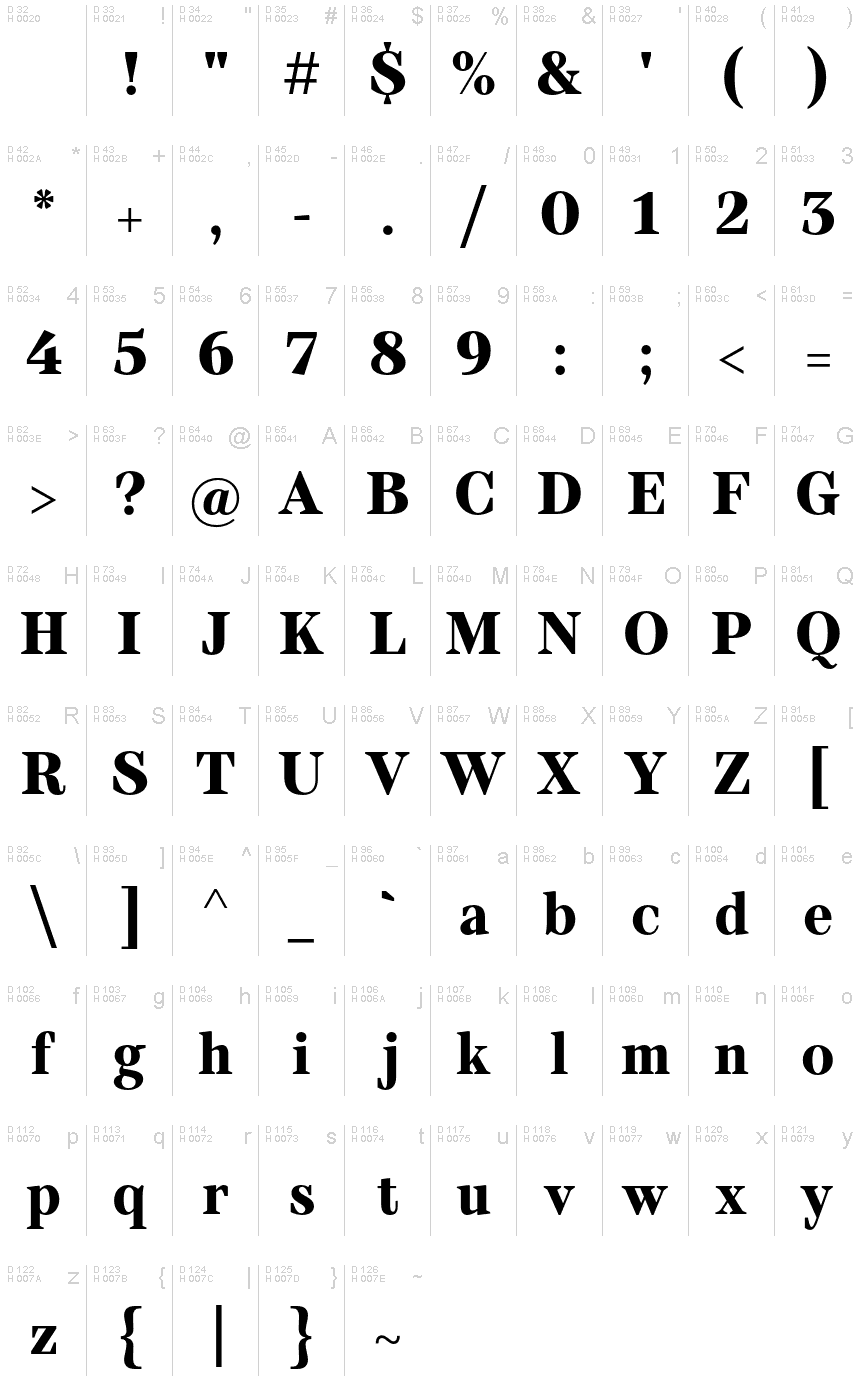
TT Barrels Trl ExtraBold
Looking for a font that packs a punch? Look no further than TT Barrels ExtraBold. This serif typeface from TypeType Foundry boasts a weighty extra-bold style that is perfect for projects that demand attention. Whether you're designing headlines, packaging, or logos, TT Barrels ExtraBold will make your text stand out. The TT Barrels font family also includes other weights and styles to give you even more options for your designs. So why settle for ordinary when you can go bold with TT Barrels ExtraBold?